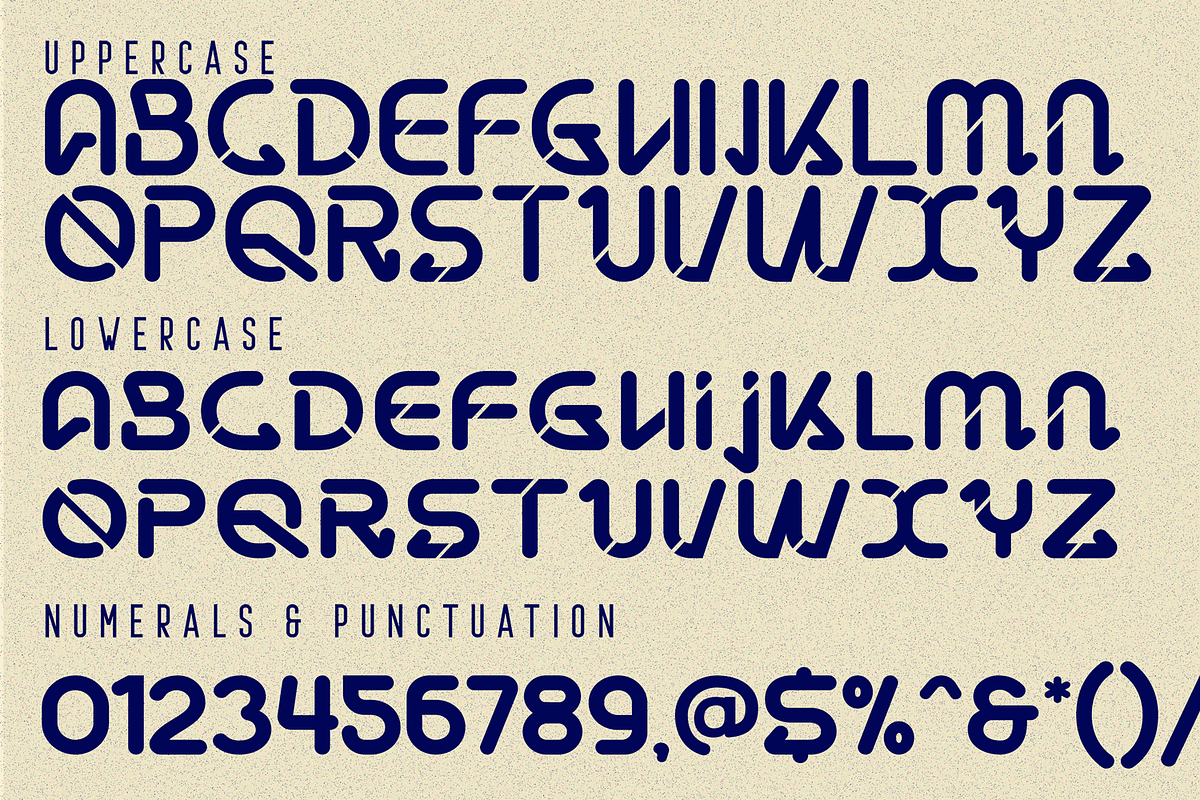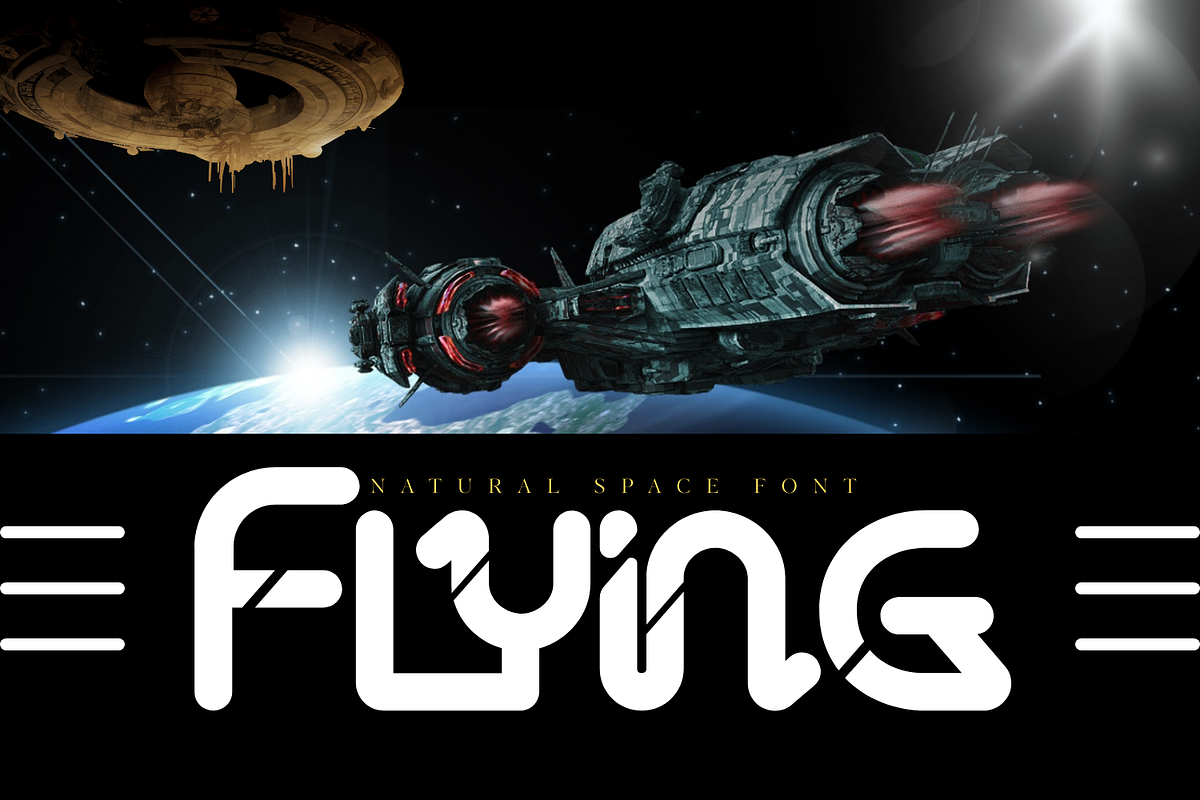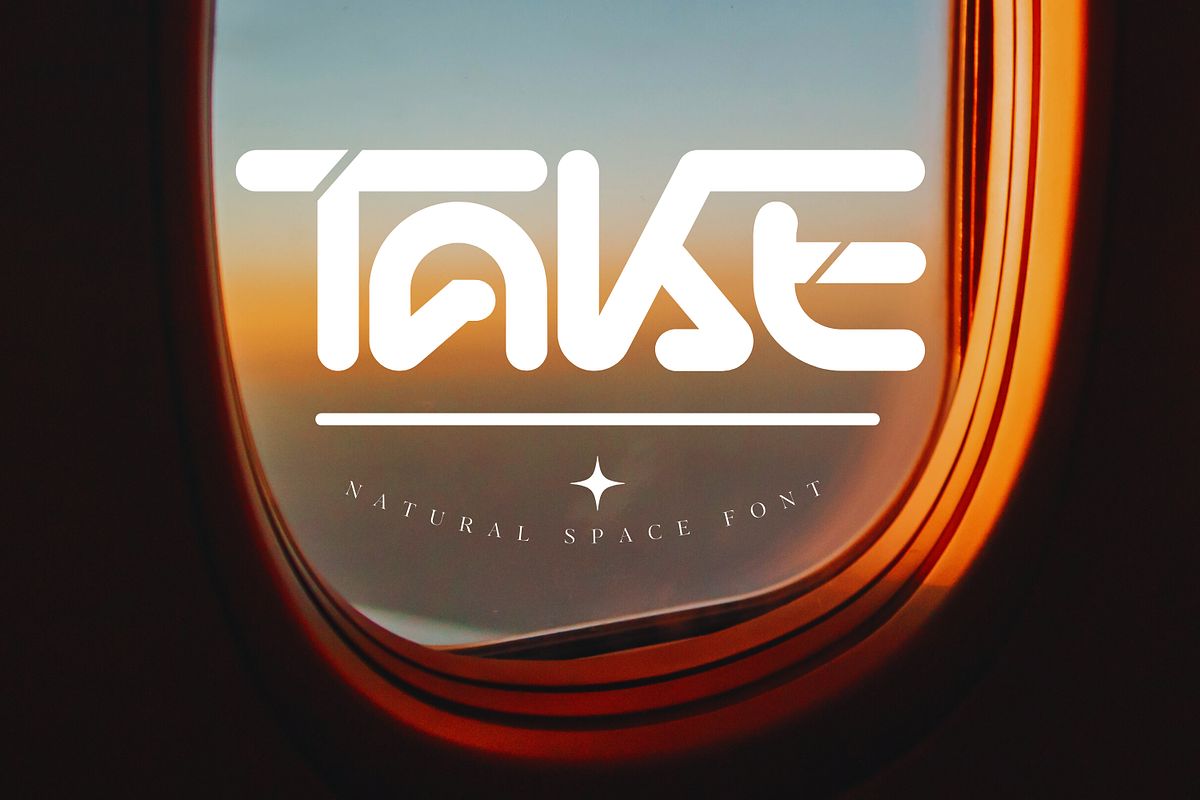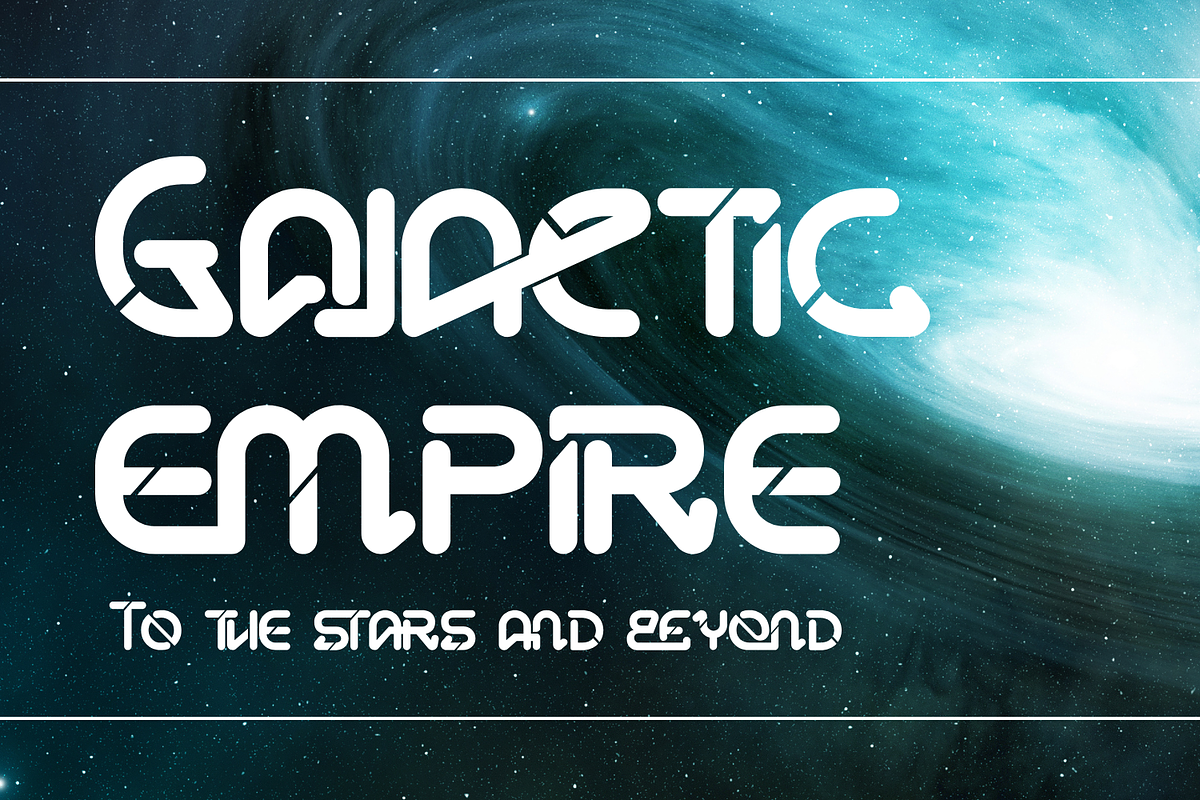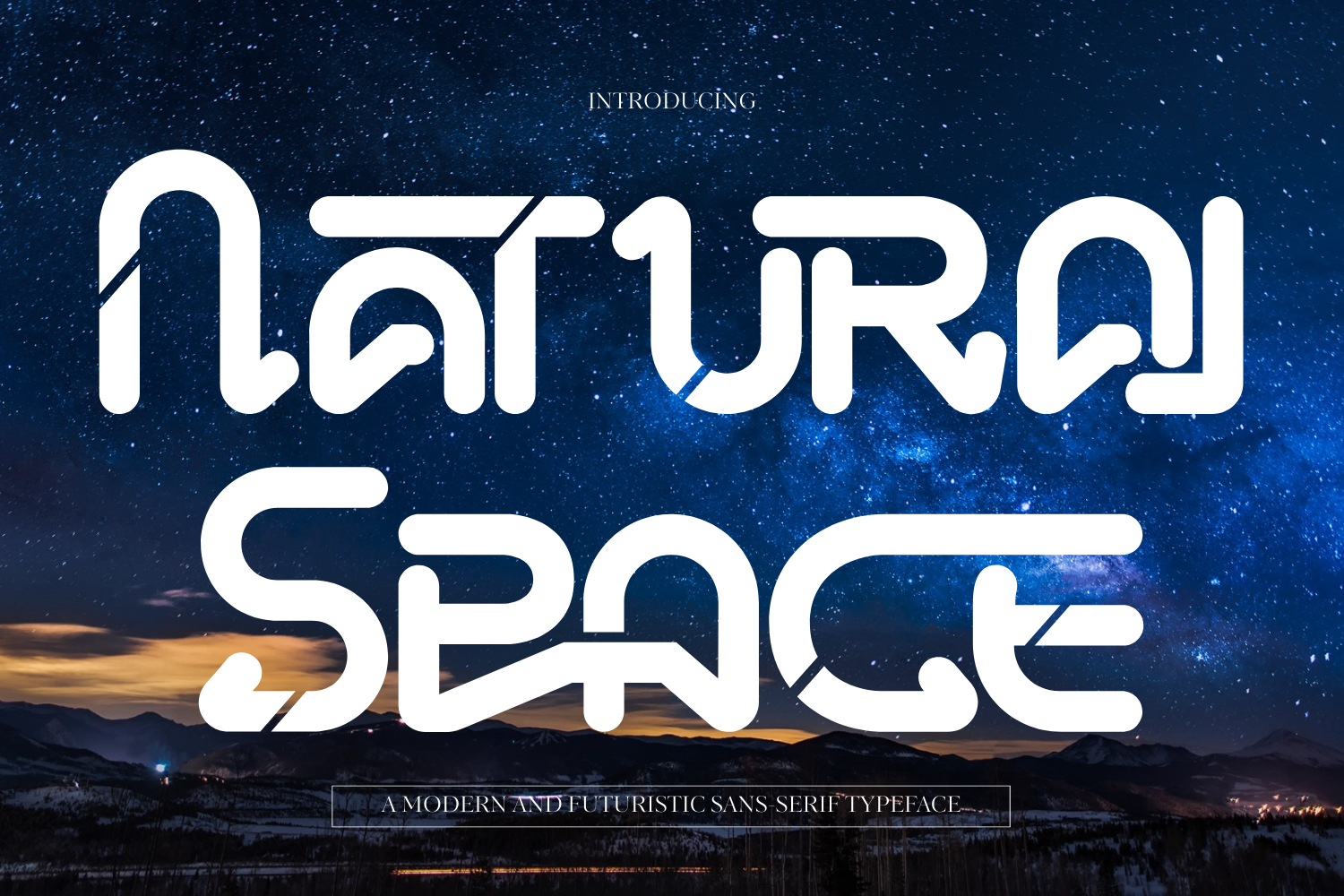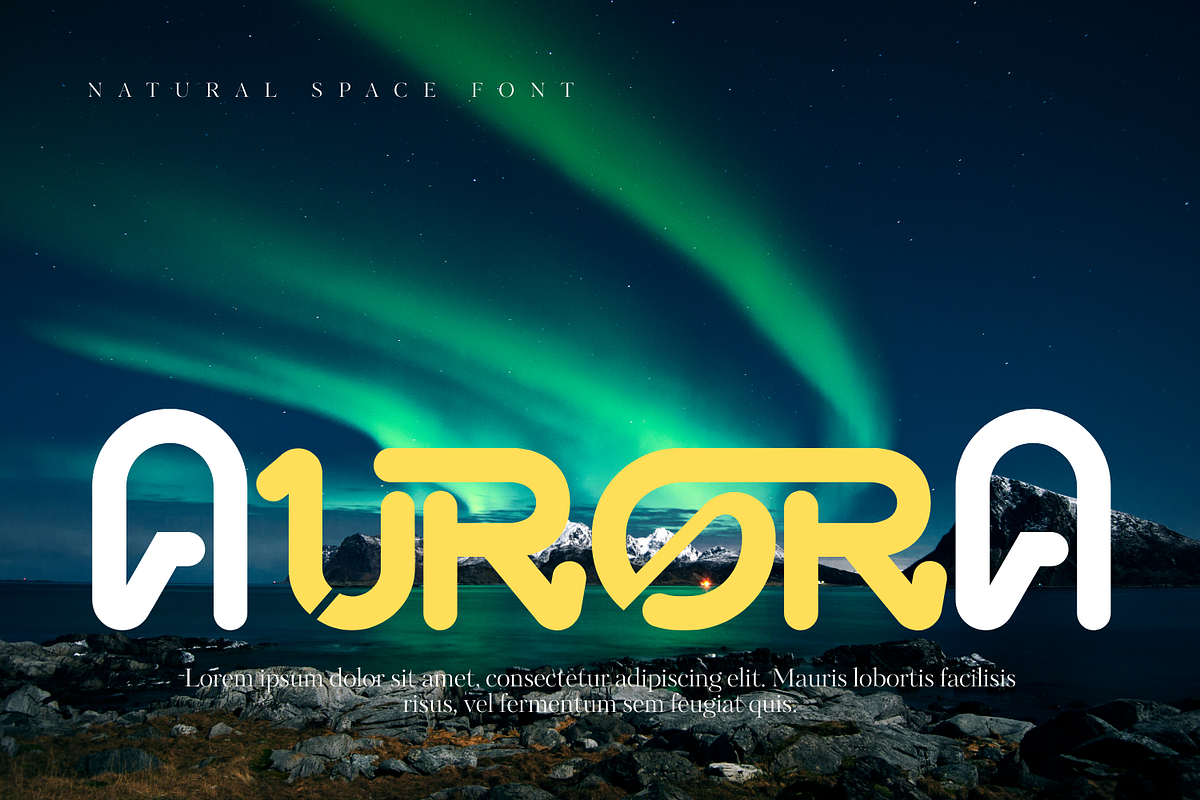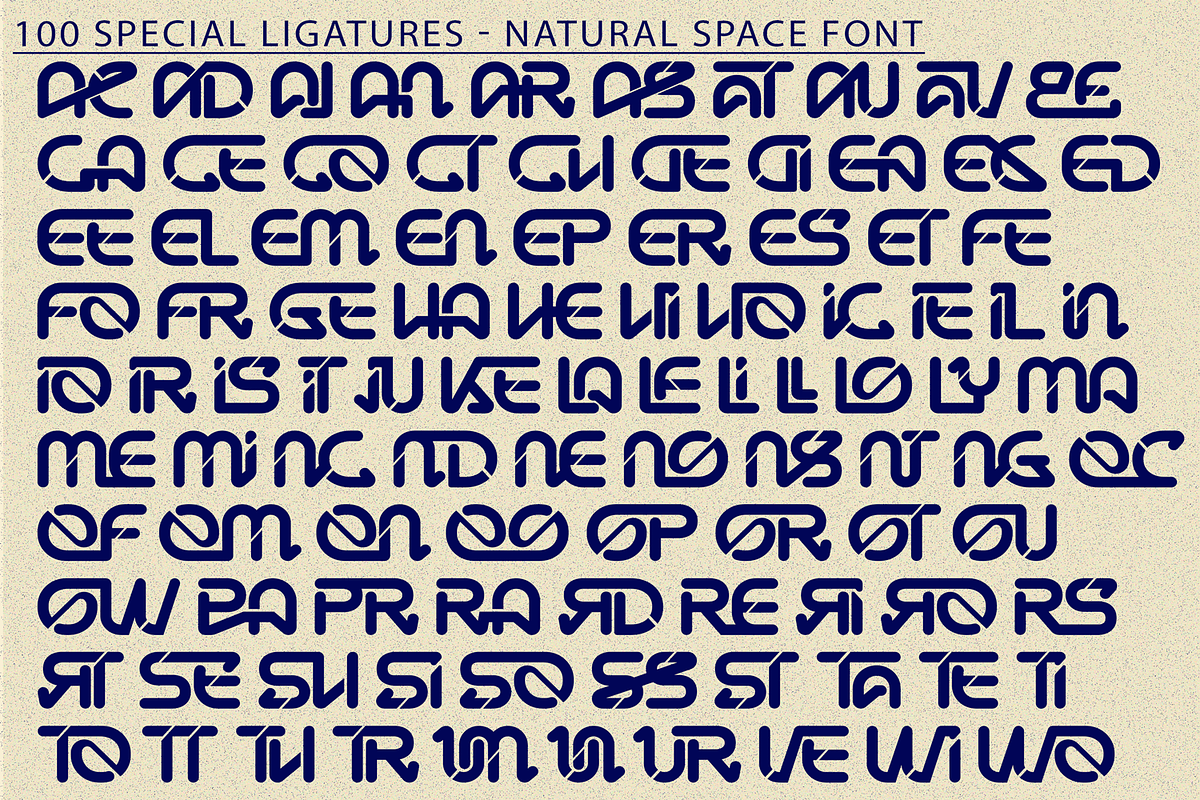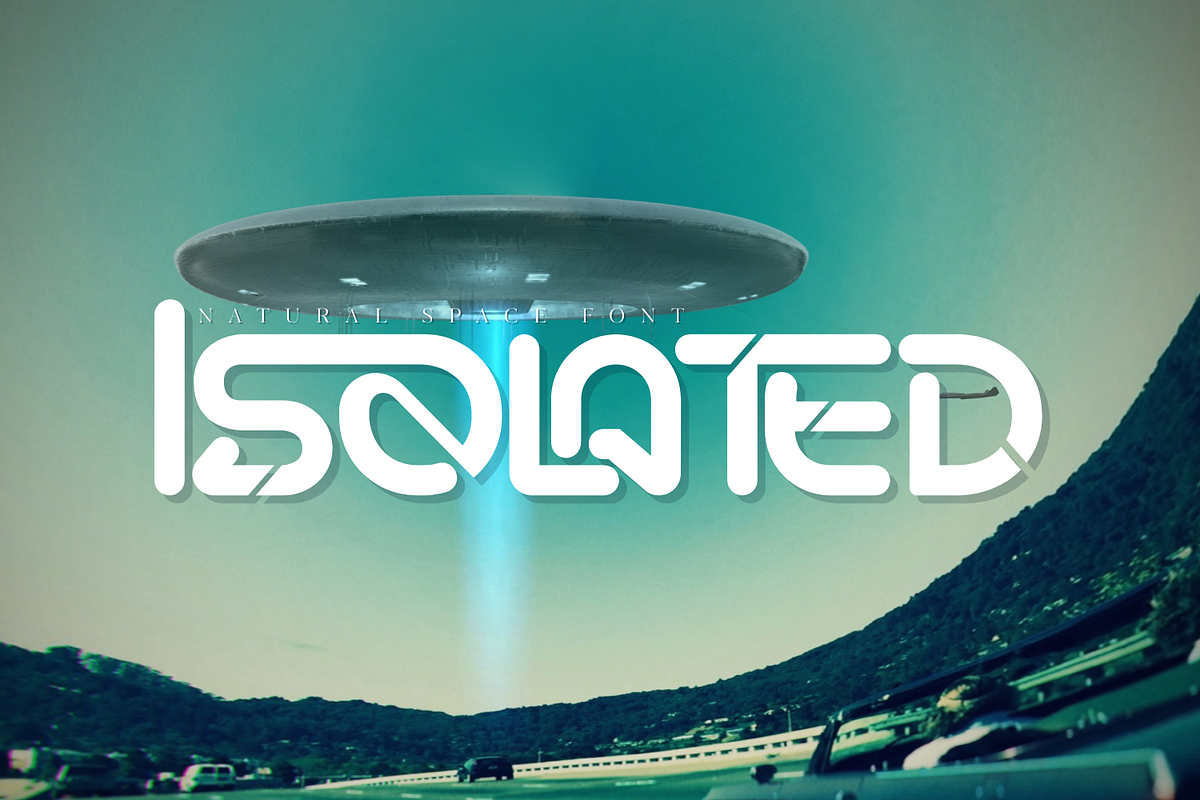
Natural Space - Futuristic Font
Natural Space - Futuristic Font – Futuristic Rounded Sans Font, a futuristic rounded sans-serif font inspired by space, technology, and modern digital design. Built with smooth curves, geometric structures, and clean monoline strokes, this typeface delivers a bold yet friendly sci-fi appearance. The rounded terminals and distinctive angled cuts create a sense of motion and innovation, while maintaining excellent legibility at large display sizes. Carefully designed ligatures add a dynamic and contemporary touch, making every composition feel modern and forward-thinking.
- Uppercase & Lowercase Letters
- Around 100 Special Ligatures & Alternates
- Accented Characters for multilingual support
🔤About 100 ligatures combined with Stylistic Alternates Font:
ac ad al an ar as at au av be ca ce ch co ct de di ea ec ed ee el em en ep er es et fe fo fr ge ha he hi ho ie ic il in io ir is it ju ke la le li ll lo ly ma me mi nc nd ne ng no nt ns oc of om on oo op or ot ou ow pa pr ra rd re ri ro rs rt se sh si so ss st ta te th ti to tr tt um un ur ve wi wo